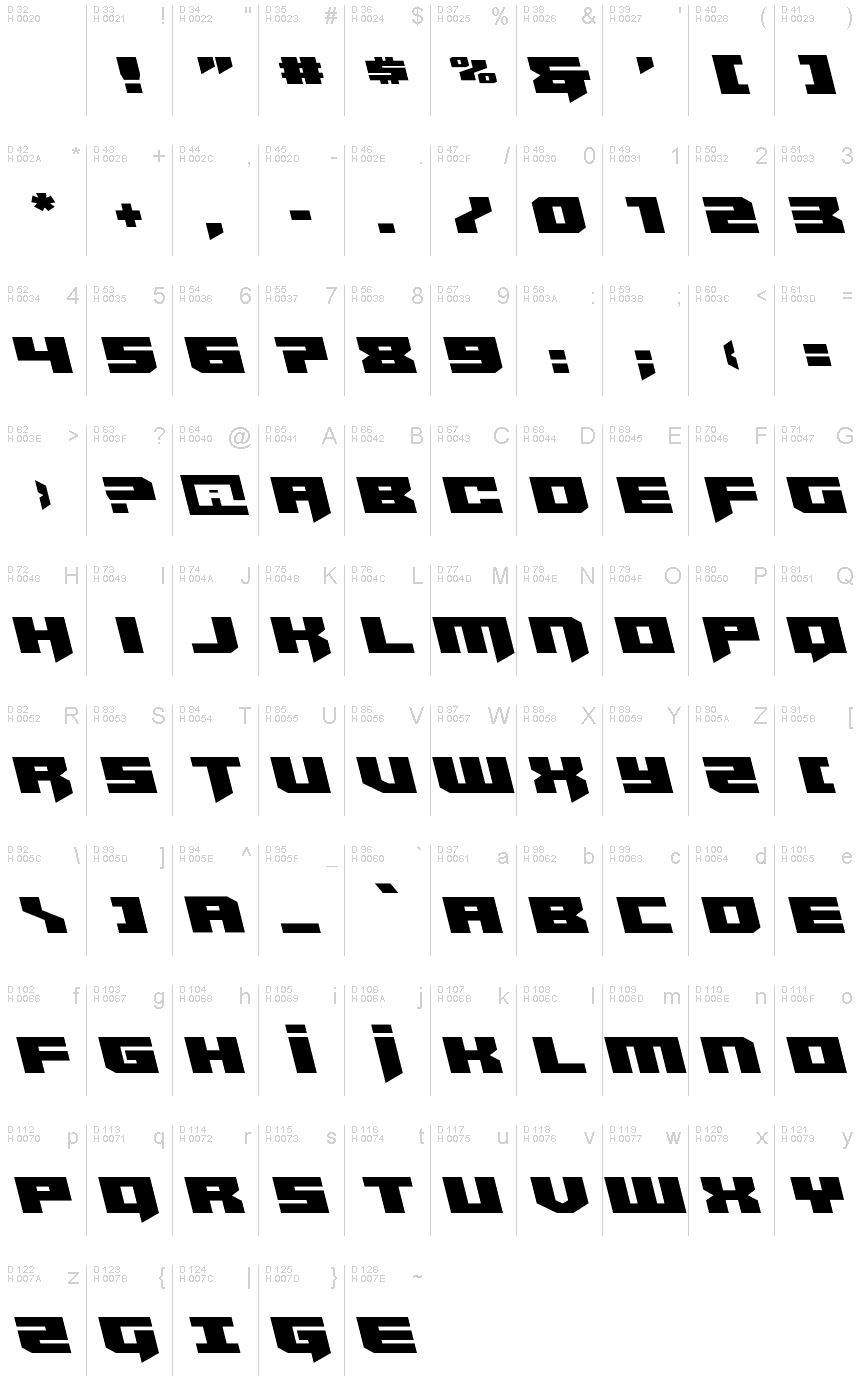
Bridge OFFicer Semi-Leftalic
Bridge Officer Semi-Leftalic stands out as a commanding display font with a futuristic edge, crafted by the innovative Iconian Fonts. Its extra-bold weight and extra-expanded width convey a robust and assertive presence, making it an excellent choice for projects that demand attention. The techno style of this font radiates modernity and efficiency, suitable for designs that aim to evoke a sense of progress and precision.
The aesthetic appeal of Bridge Officer Semi-Leftalic lies in its unique slant, offering a dynamic twist on the traditional left italic orientation. This characteristic infuses movement and energy into the typeface, perfect for creative endeavors that require a distinctive visual impact.
Whether employed in bold titles, captivating logos, or immersive sci-fi game interfaces, Bridge Officer Semi-Leftalic is poised to add that cutting-edge flair to any creative project. Its distinct appearance ensures readability while maintaining an unconventional allure—ideal for designers looking to push the boundaries of conventional typography.
The aesthetic appeal of Bridge Officer Semi-Leftalic lies in its unique slant, offering a dynamic twist on the traditional left italic orientation. This characteristic infuses movement and energy into the typeface, perfect for creative endeavors that require a distinctive visual impact.
Whether employed in bold titles, captivating logos, or immersive sci-fi game interfaces, Bridge Officer Semi-Leftalic is poised to add that cutting-edge flair to any creative project. Its distinct appearance ensures readability while maintaining an unconventional allure—ideal for designers looking to push the boundaries of conventional typography.